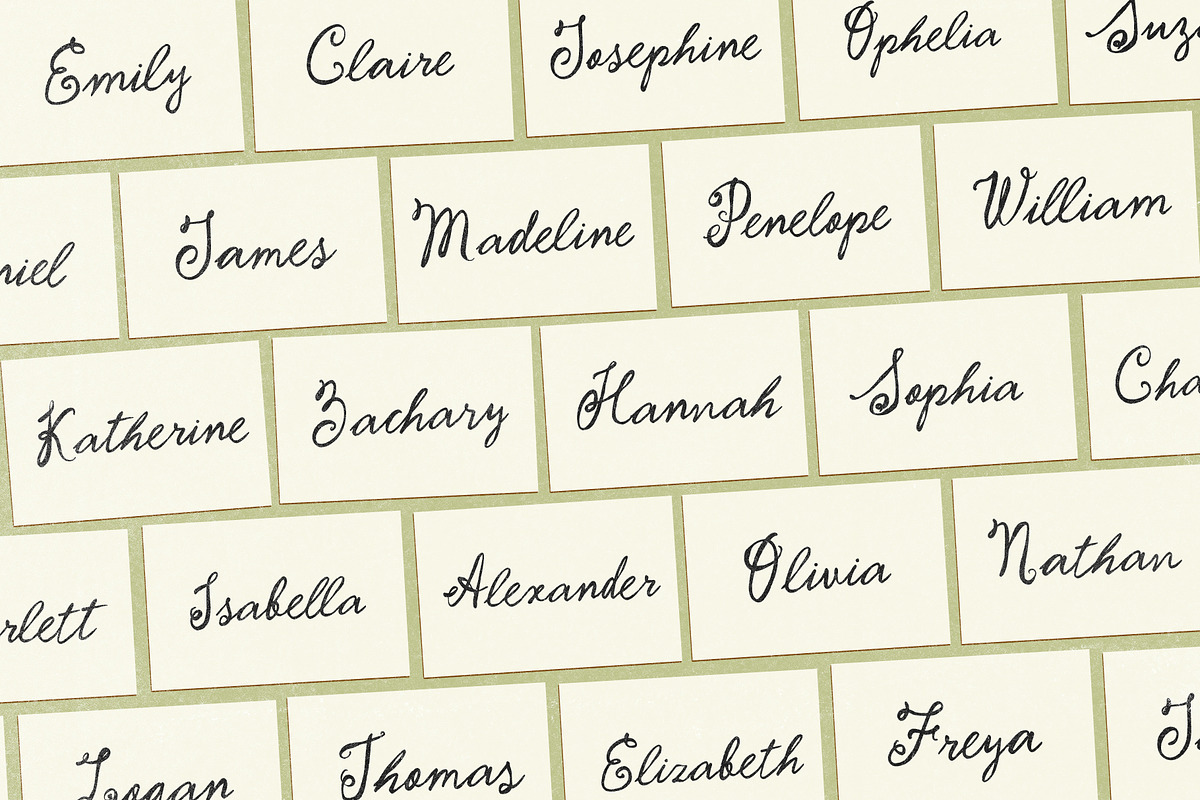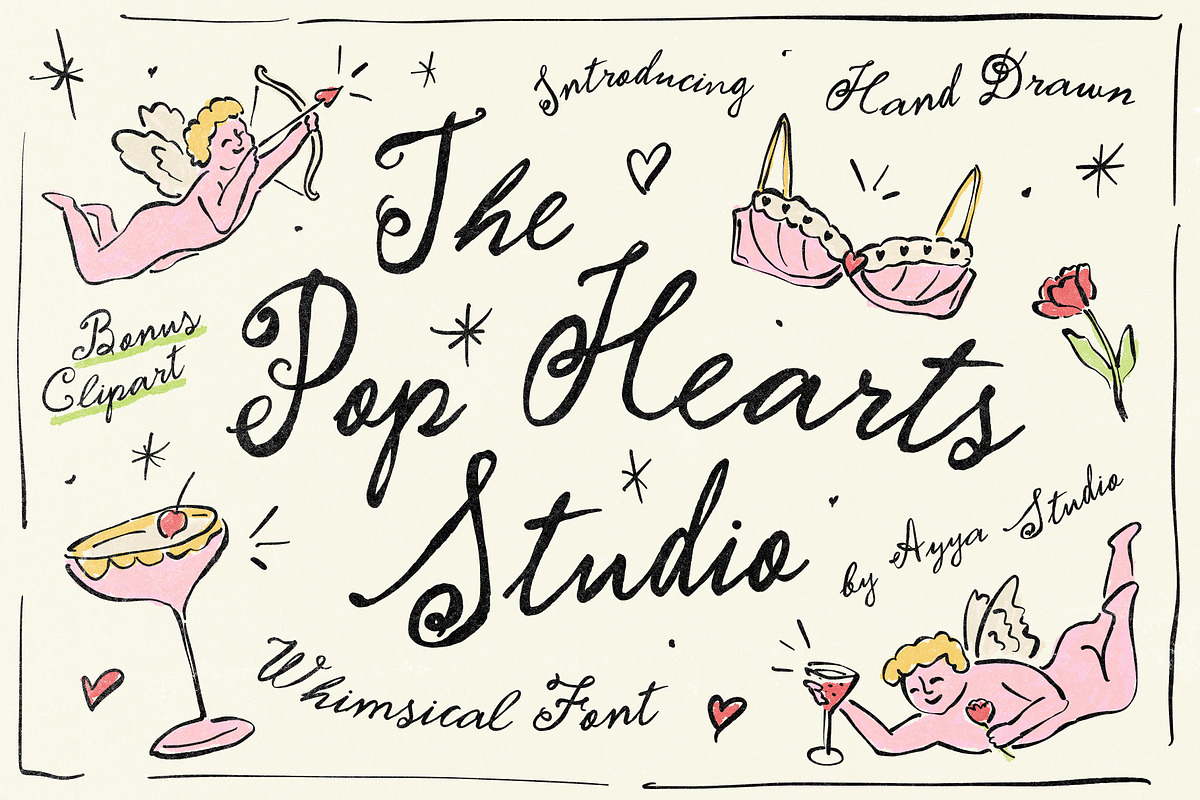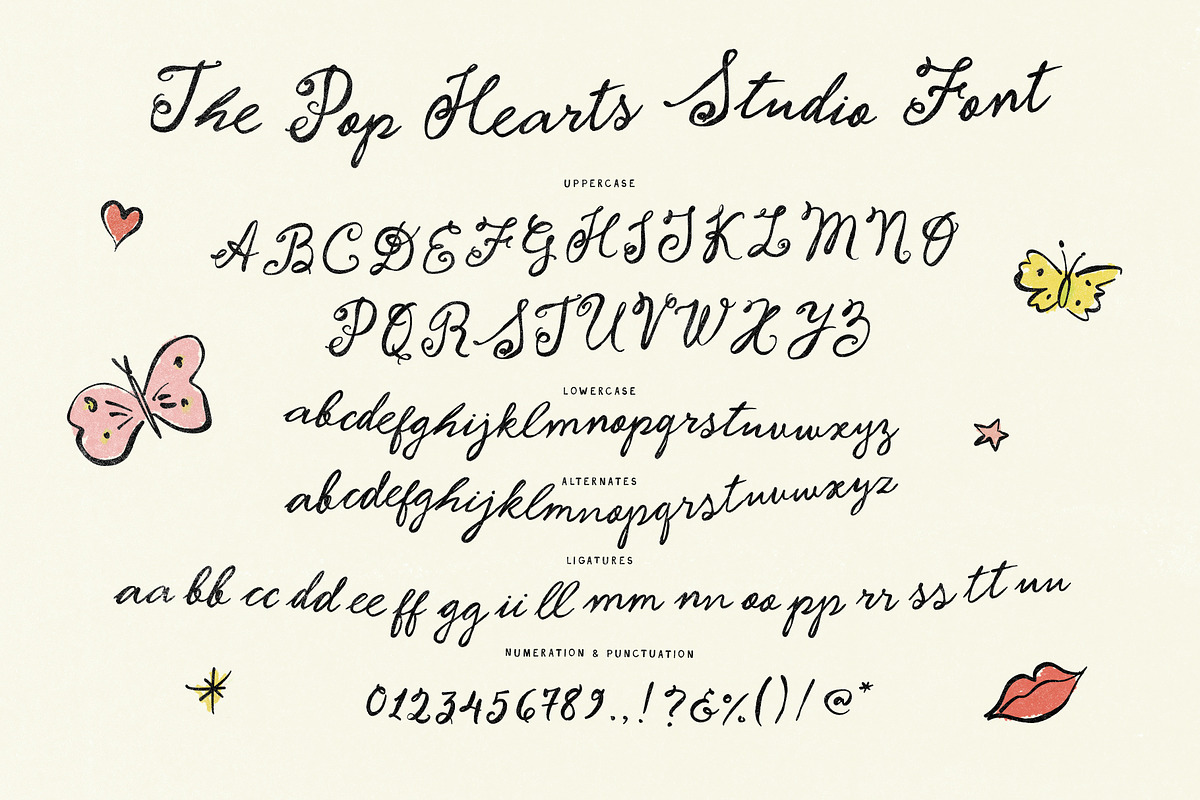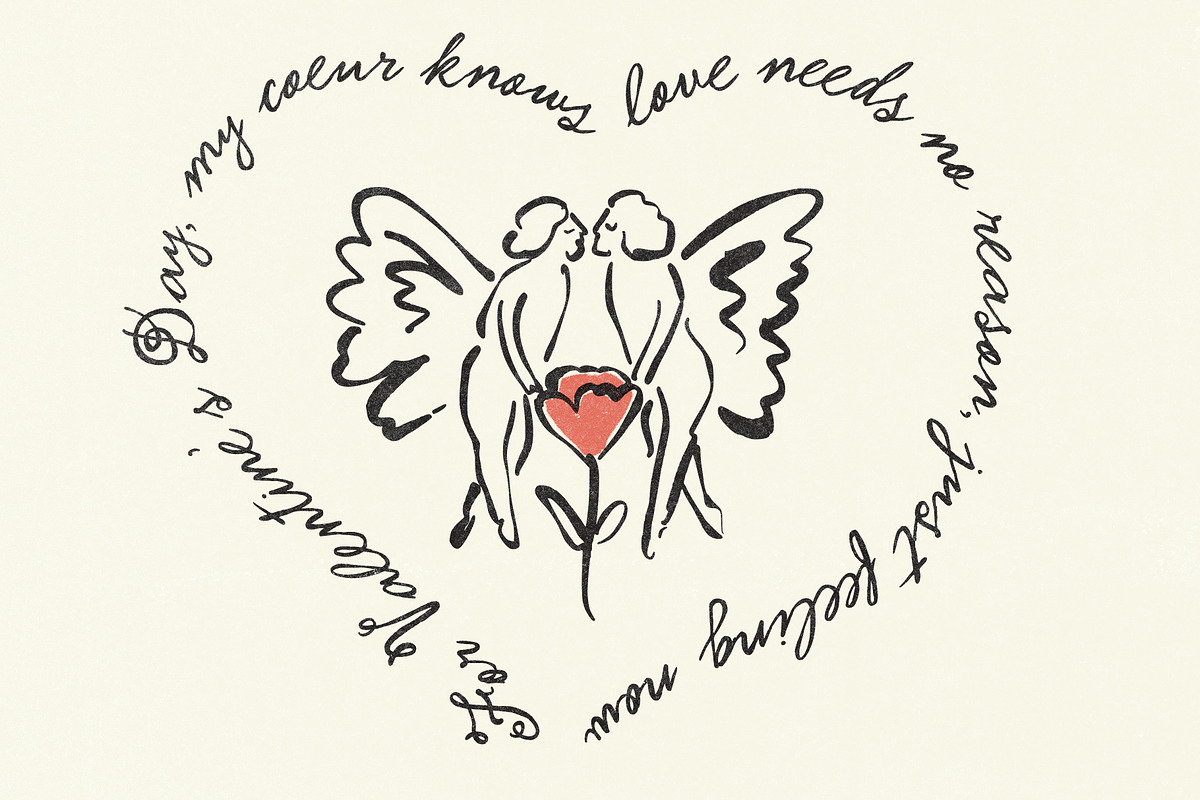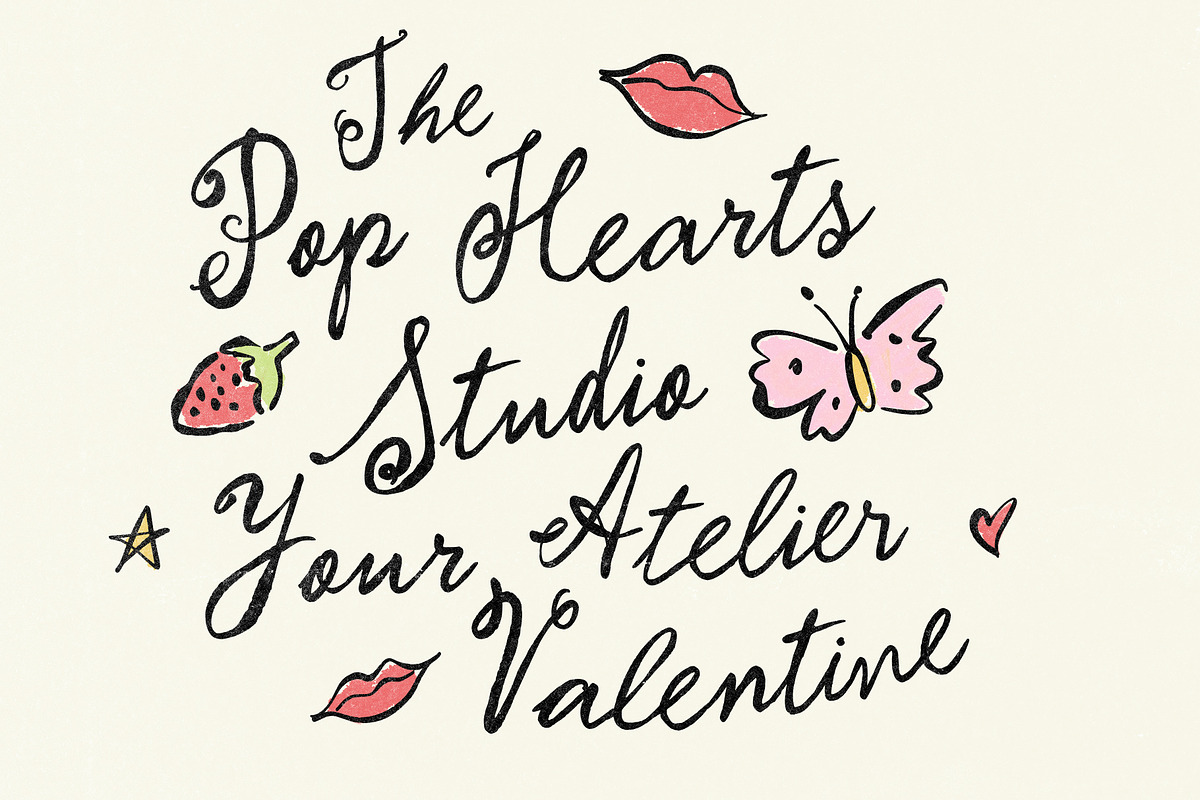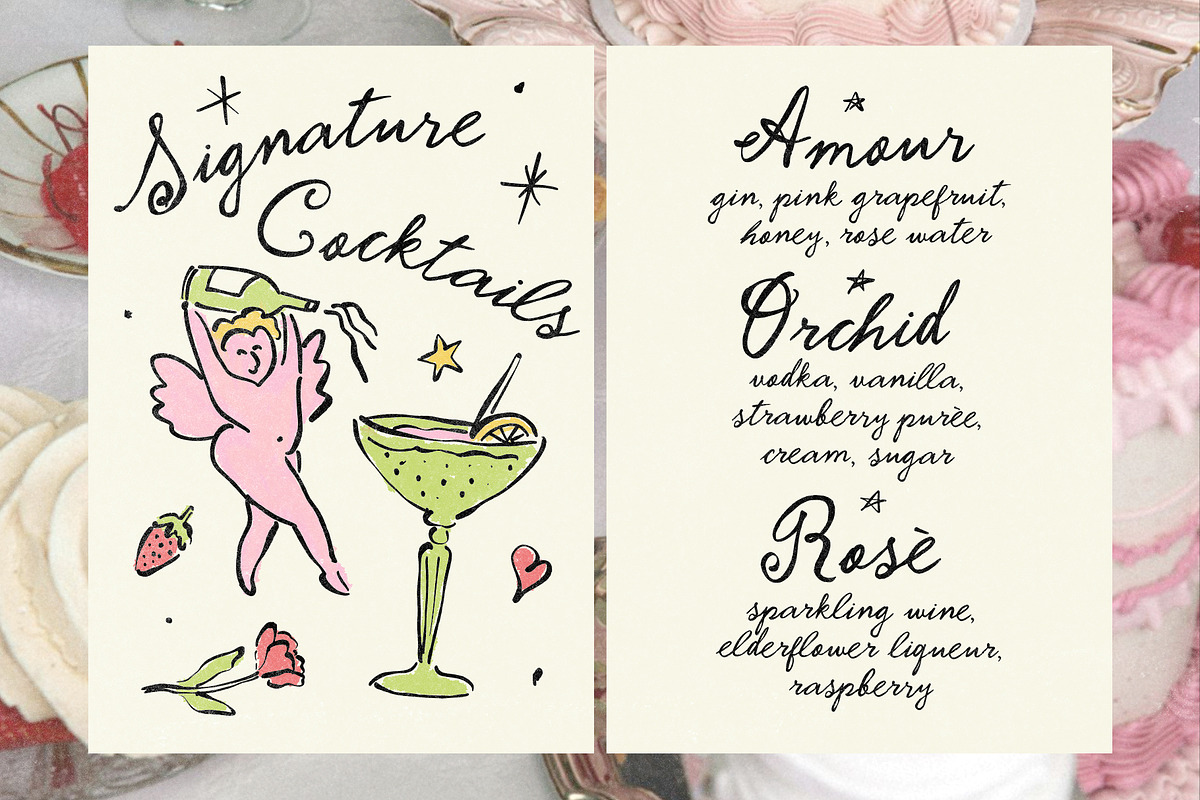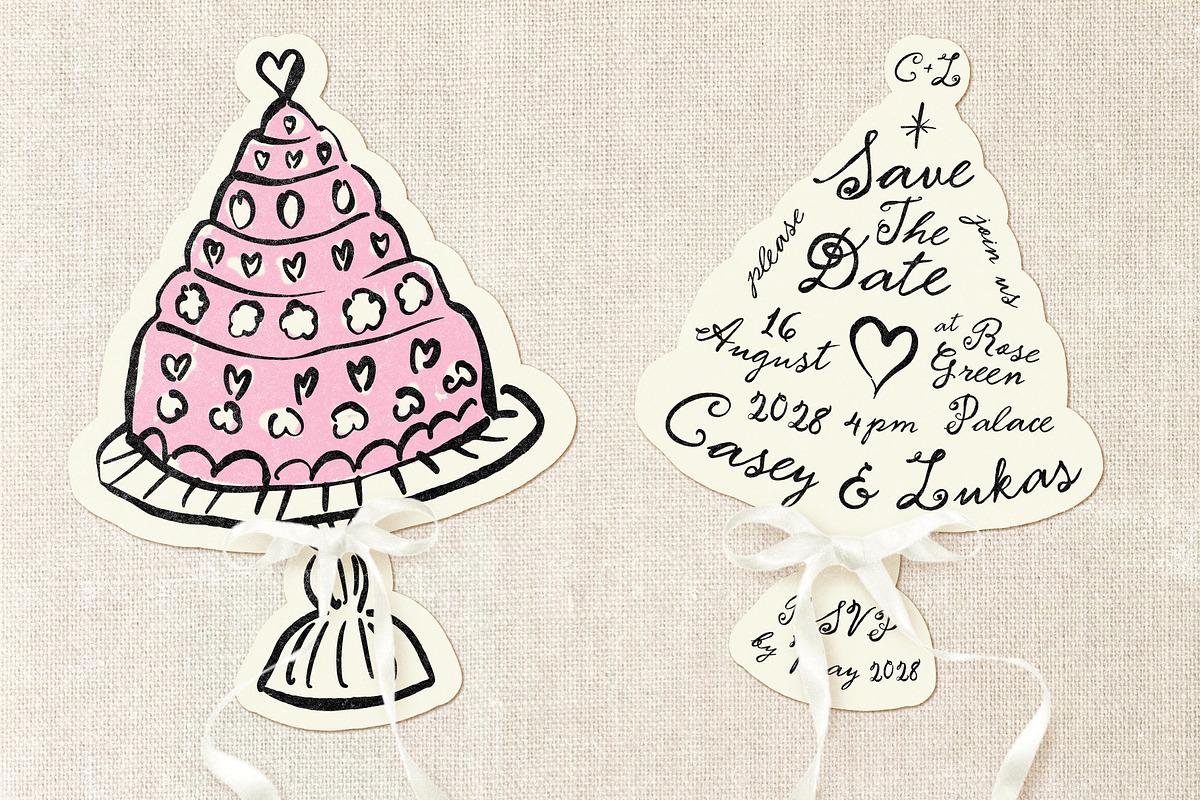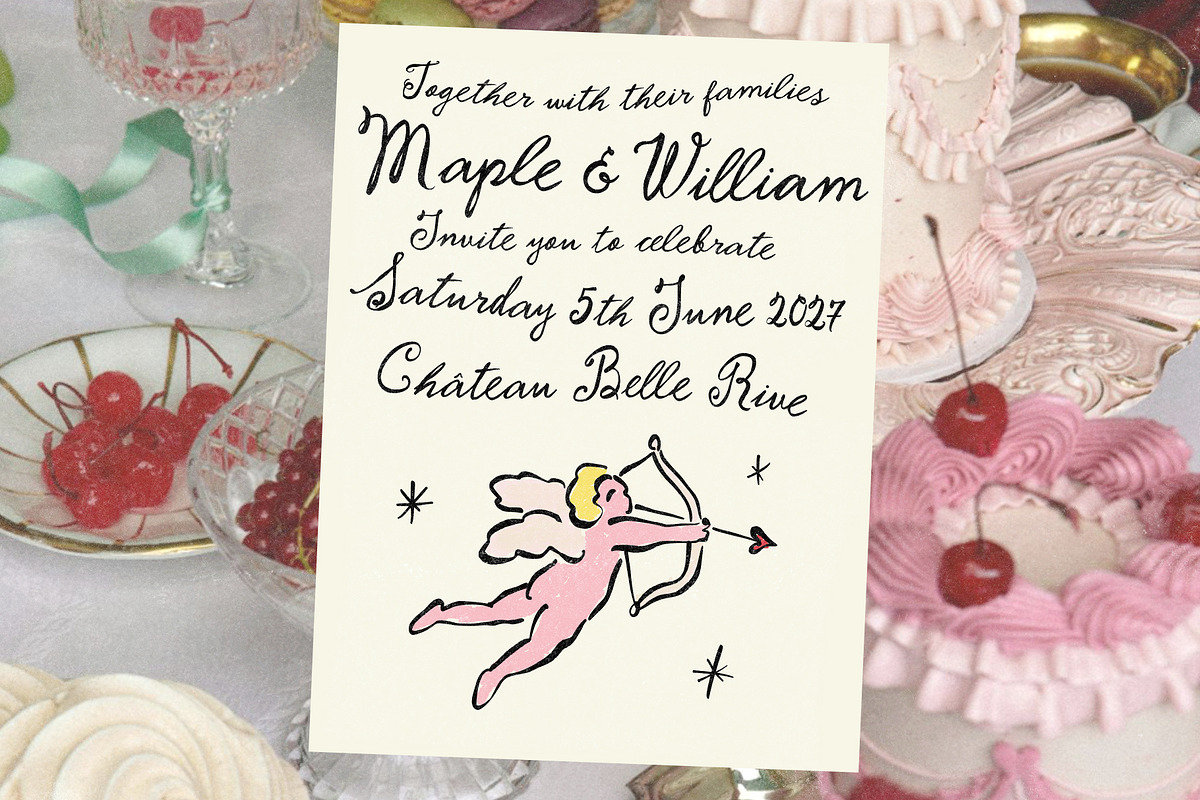
Pop Hearts Studio Whimsical Font
Introducing Pop Hearts Studio — type that refuses to sit still.
This is the font we’ve been wanting to make for a looong time. One that feels handwritten in the most honest way — like letters painted on shop windows in Soho, scribbled notes from old studios, vintage posters in New York and Paris where nothing was too perfect and that was the point!
Pop Hearts Studio is playful, loud, and intentionally imperfect. It’s full of movement, quirks, and uneven strokes that make it feel alive. There’s a strong vintage soul here, mixed with that pop-art energy where typography was personal, expressive, and a little rebellious. :)
It’s highly variable, whimsical, and fits right into the current mood — this love for handmade, character-filled type isn’t going anywhere.
Made for designers and artists. Use it for branding, packaging, editorials, posters — and yes, weddings too. Not the quiet, traditional kind, but modern love stories, save the dates with personality, and stationery that feels like it was made just for you.
The font comes with a set of hand-drawn illustrations created in the same spirit — hearts, charms, and little details that work beautifully for wedding invitations, save the date cards, and Valentine’s Day projects.